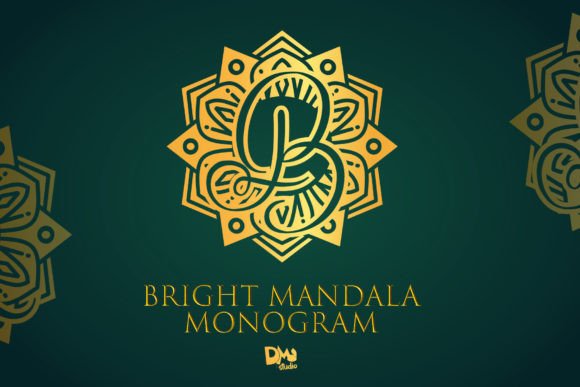
The Bright Mandala Monogram Font: A Designer’s Dream Come True
• ✨ Elegant and unique design inspired by mandala art
• ✅ Highly versatile for various design projects, from logos to crafts
• 💫 Beautifully crafted glyphs and stylistic alternates for added creativity
• 🌈 Bright and cheerful color palette that’s perfect for making a statement
While the Bright Mandala Monogram Font is an amazing addition to any design project, there are a few things to keep in mind:
• ⚠️ Some characters may not work well in very small sizes due to intricate details
• 🤔 Limited language support, so be sure to check compatibility before use
The Story Behind Bright Mandala Monogram Font
The Bright Mandala Monogram Font was inspired by the beauty and intricacy of mandala art. Its designer, a creative and talented artist, wanted to capture the essence of this ancient art form and bring it into the modern design world. With its unique blend of elegance and playfulness, this font is sure to inspire your next design project.
Font Name Bright Mandala Monogram Font